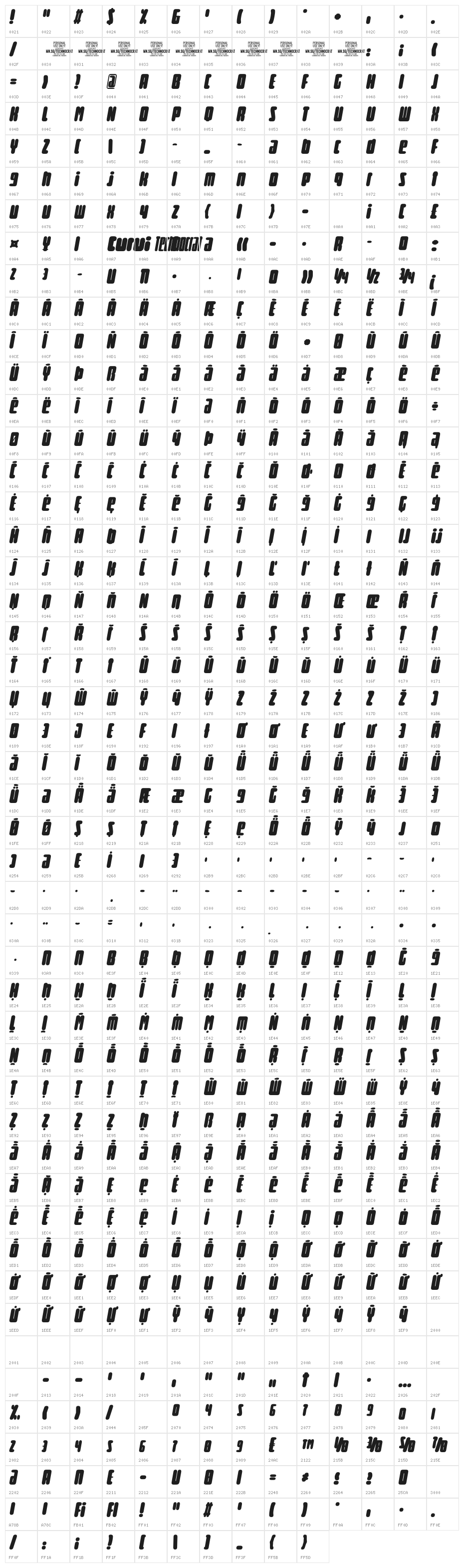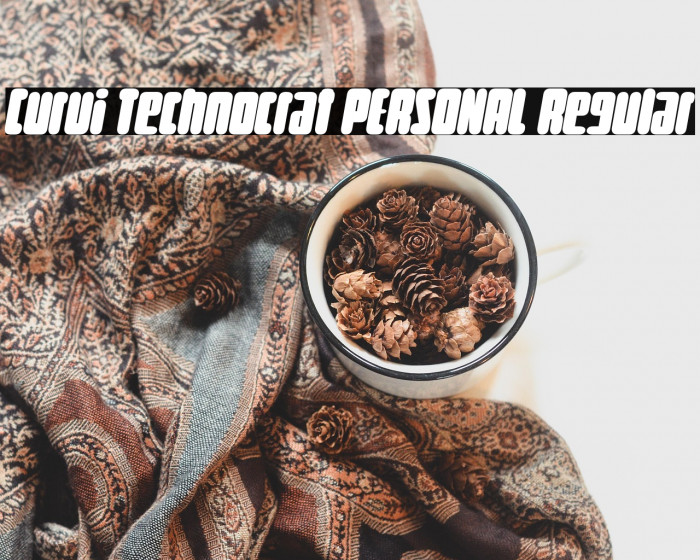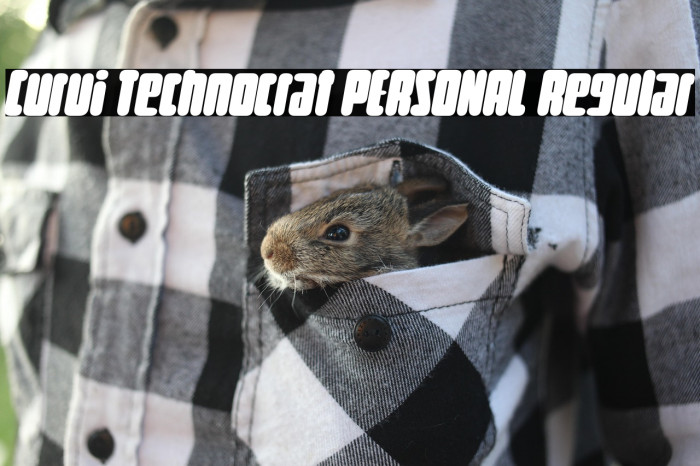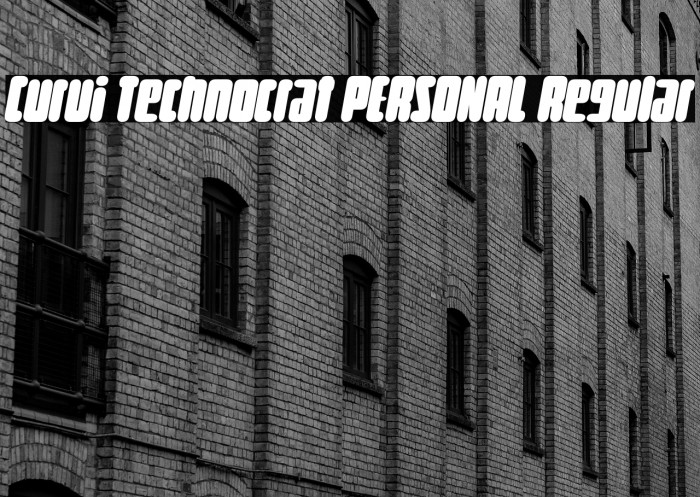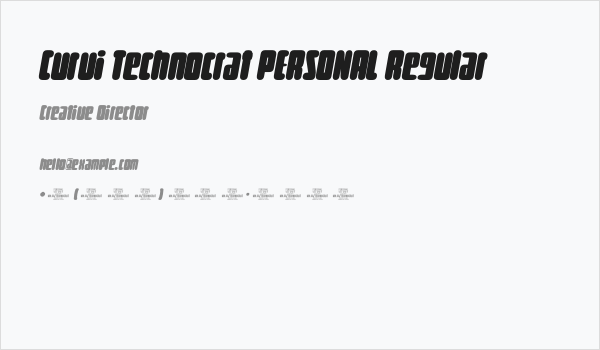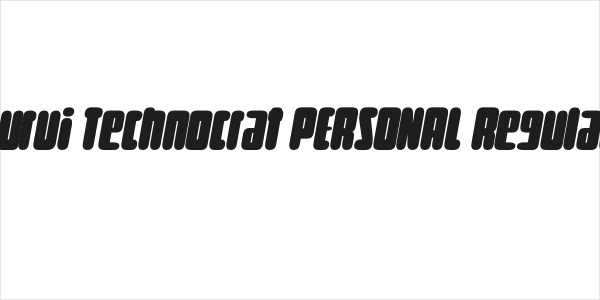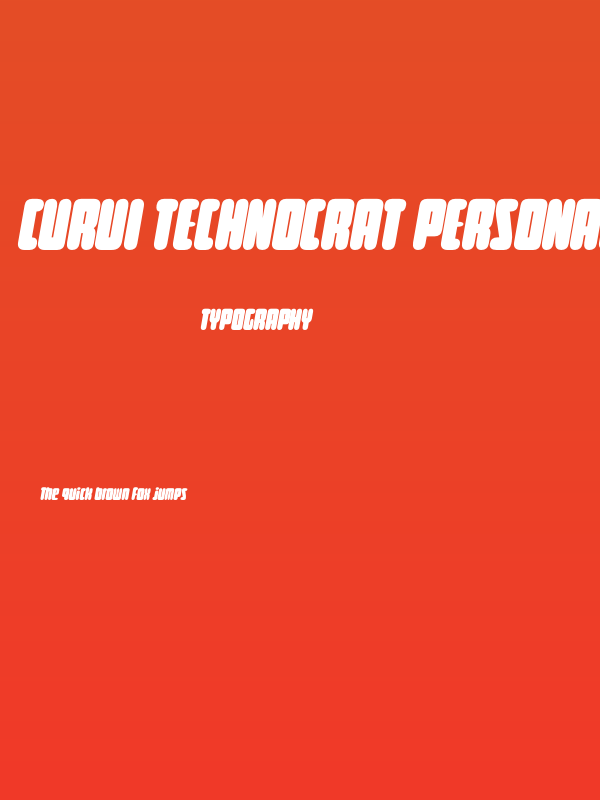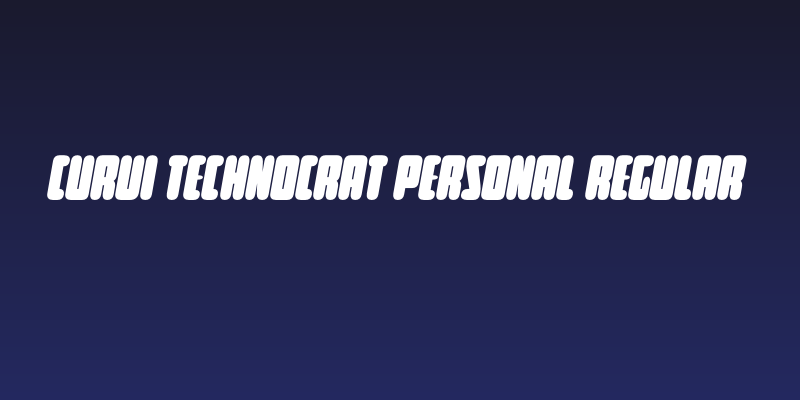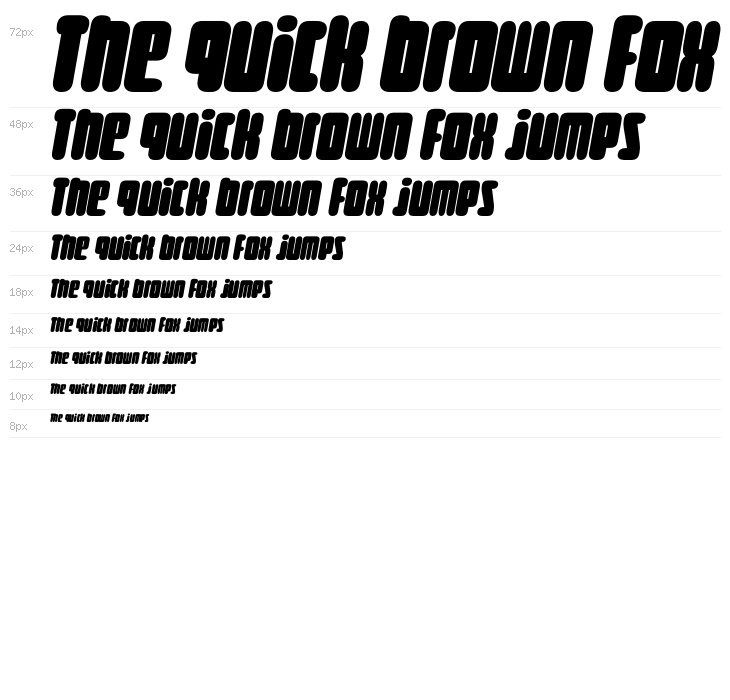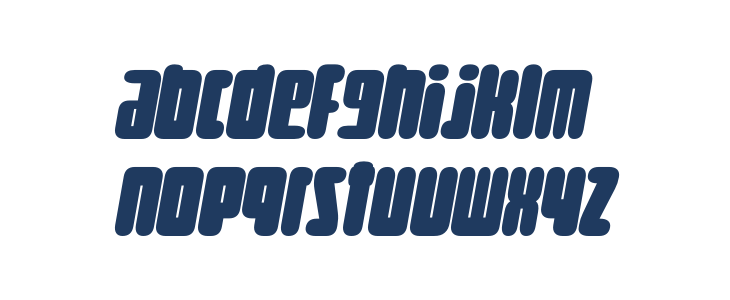
Curvi Technocrat PERSONAL Regular Font
Curvi Technocrat PERSONAL Regular Description
This font features a bold, rounded style with a futuristic and technological feel. The characters are wide and have a consistent thickness, giving them a strong and impactful appearance. The rounded edges soften the overall look, making it approachable while maintaining a modern aesthetic. The uppercase and lowercase letters are distinct, with a playful yet structured design. Numbers and special characters follow the same stylistic approach, ensuring uniformity across all glyphs. This font is ideal for projects that require a bold statement with a touch of modernity.